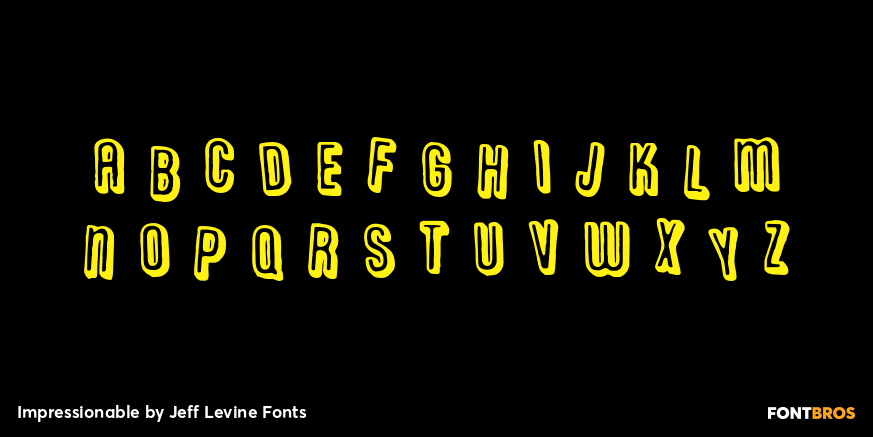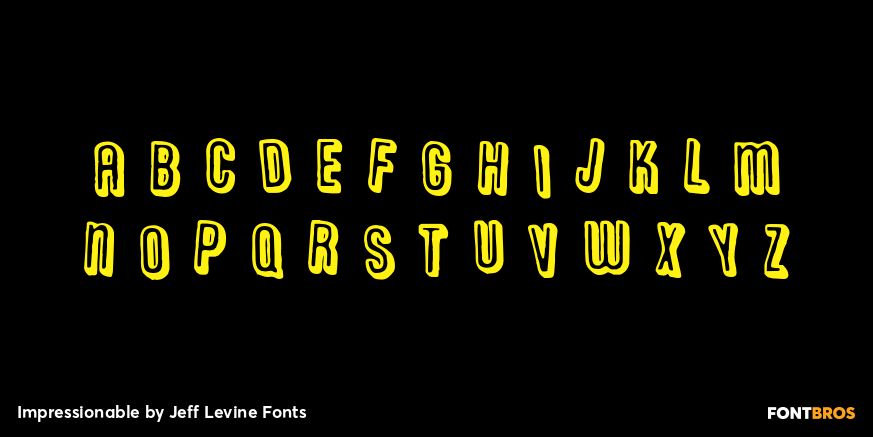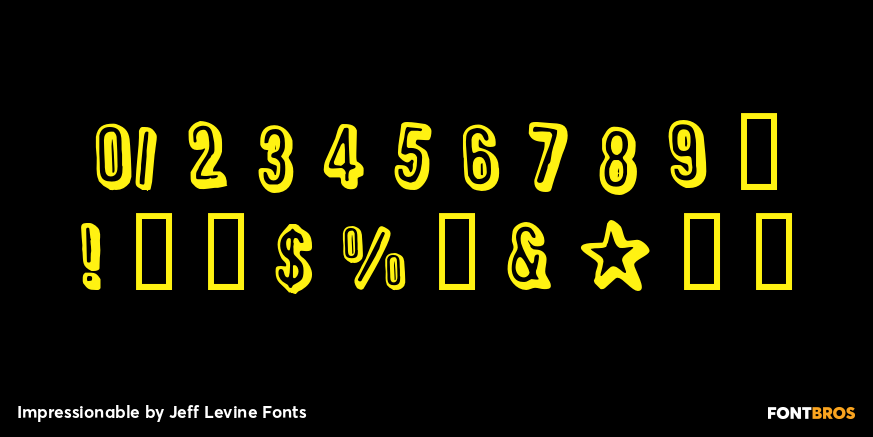
Impressionable
Impresssionable JNL is a font created from samples printed from a vintage rubber stamp toy set. This is a limited character design without spacing or kerning in order to preserve the hand-made look of inkpad printing on paper. A few extra punctuation glyphs, a percent sign and Euro were added to the original characters.
At smaller sizes (72 point or less), the letters resemble the imprints of the stamps, but at higher sizes, they take on a different look of deconstructed lettering.